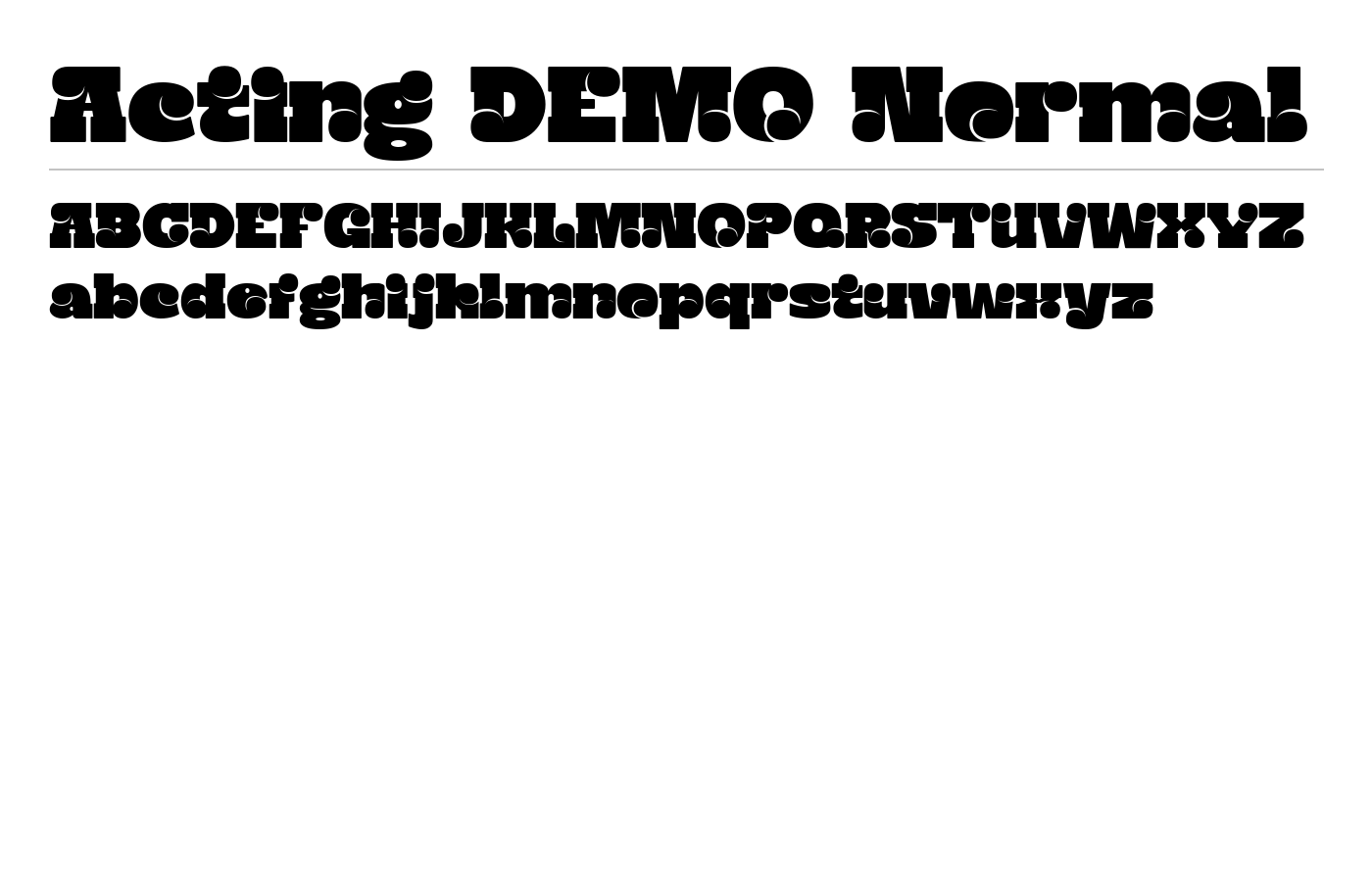
Acting DEMO is a bold, heavily stylized slab serif font featuring thick, blocky letterforms with quirky, playful cutouts and asymmetrical shapes, giving it a unique, theatrical personality. Its strong presence and high contrast make it ideal for eye-catching headlines, posters, or branding that aims to convey a fun, creative, and unconventional vibe. This font works best where boldness and distinctiveness are key to attracting attention and expressing originality.
Acting DEMO Font
About Acting DEMO Font